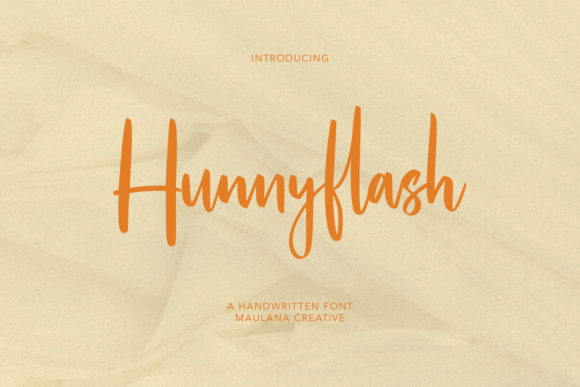
Dive into the enchanting world of Hunnyflash, a script font that exudes a captivating allure. Crafted with meticulous attention to detail, each letter dances across the page with an irresistible grace. Hunnyflash is more than just a font; it's a gateway to imaginative expression.
Indulge in the timeless beauty of handwritten scripts with Hunnyflash. Its elegant curves and delicate flourishes evoke a sense of nostalgic charm, making it the perfect choice for personalizing invitations, greeting cards, and other heartfelt creations. Bring your words to life with the captivating allure of Hunnyflash.
Embark on a literary adventure with Hunnyflash, the font that transforms ordinary text into extraordinary tales. Whether you're crafting a captivating PDF book or weaving a heartfelt memoir, Hunnyflash adds a touch of magic to every word. Get ready to captivate your readers with the enchanting power of Hunnyflash.
Unleash your creativity with Hunnyflash, a font that empowers you to express yourself with style. Create breathtaking social media posts, design eye-catching logos, and craft stunning website headers that leave a lasting impression. Hunnyflash is the key to unlocking your limitless design potential.